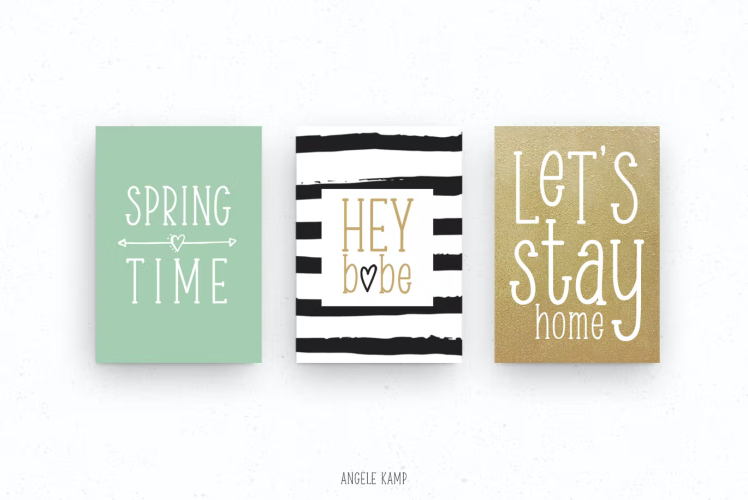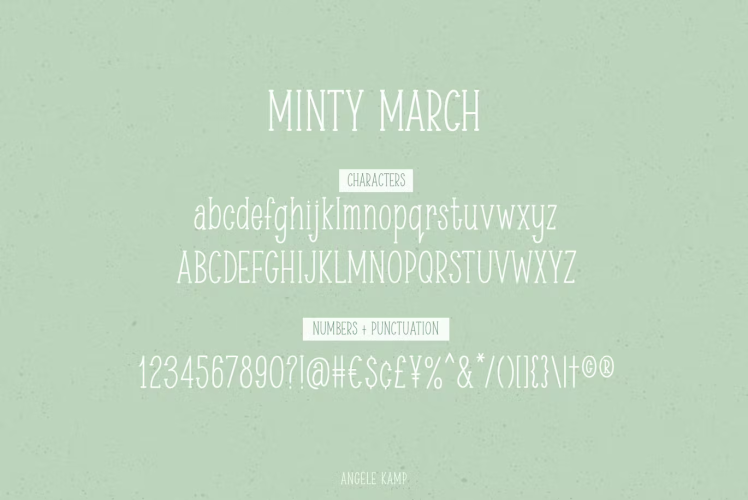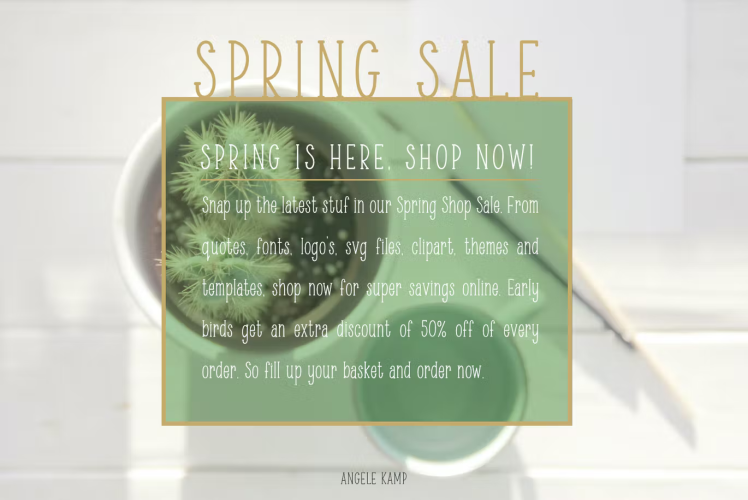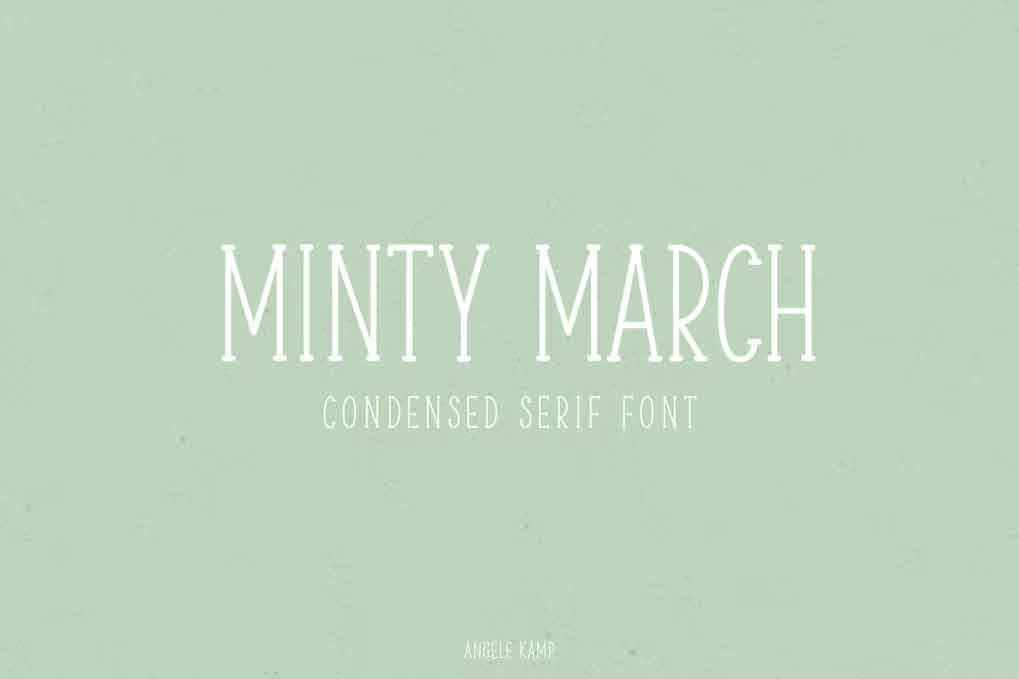
Minty March Condensed serif font
Minty March is an adorable handwritten font that is perfect for cards, invites, logos, birthday invitations, and more. This condensed, serif also works well when combining it with a script font.
WHAT’S INCLUDED Minty March contains standard characters, lowercase, uppercase, numbers, punctuation, ligatures and international characters.
Minty March Condensed serif font is a Serif Fonts font that brings a professional and versatile look to your projects. Minty March is an adorable handwritten font that is perfect for cards, invites, logos, birthday invitations, and more.